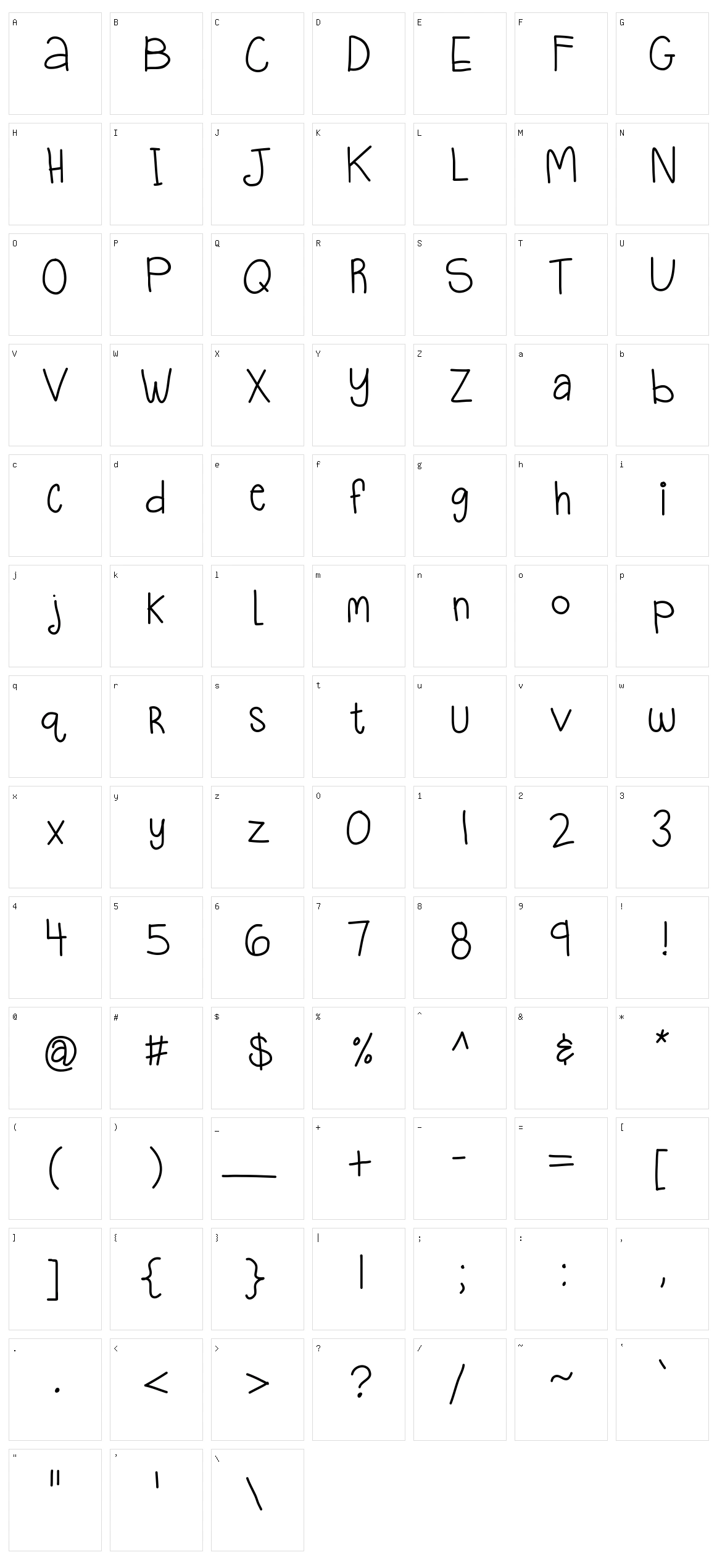
The free font KB Quiet Stories is carefully designed by Khrys Bosland, showcasing a thoughtful balance of creativity and usability and falls under the Script font style. When you download the ZIP file, it contains only 13.76 KB of font files, making it lightweight and quick to download. Please review the license details below to understand permitted usage and distribution rights. If license information is not available, we recommend using this font for personal projects only or contacting the author directly for commercial usage permissions.